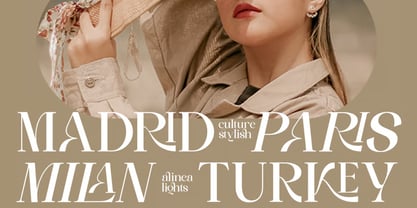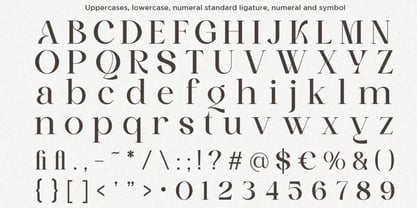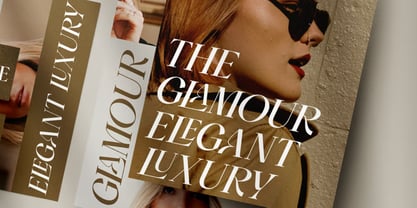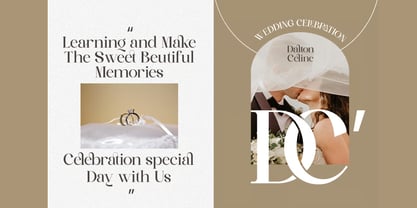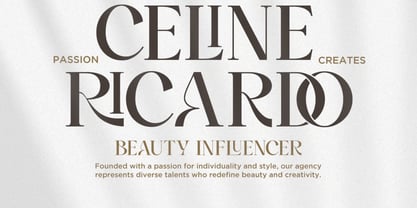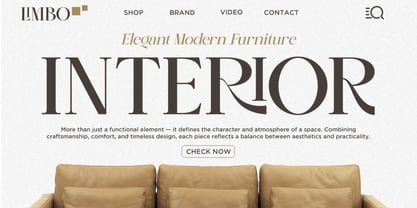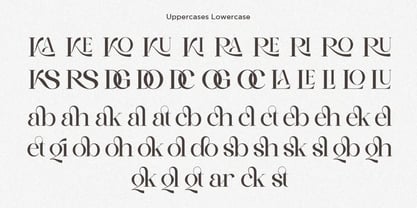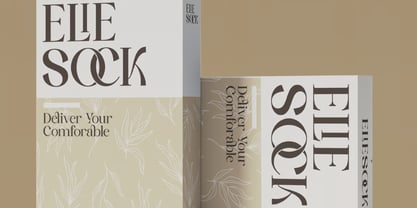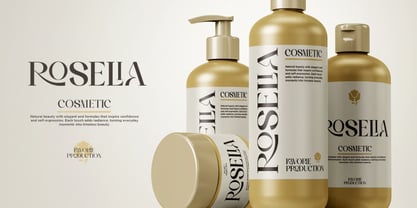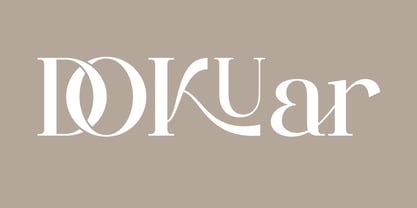
Dokuar
The Dokuar Font Family was designed by Hasnat Khan and published by Hasnat Studio. Dokuar contains 1 styles. More about this family
Dokuar is an elegant ligature serif font crafted for designers who appreciate luxury, sophistication, and timeless typography. Featuring refined letterforms, artistic ligatures, and a stunning high-contrast serif style, Dokuar seamlessly blends classic elegance with contemporary design trends, making it an exceptional choice for premium creative projects.
Designed to deliver a polished and upscale aesthetic, Dokuar enhances everything from luxury logos and fashion branding to editorial layouts and wedding stationery. Its graceful curves, carefully balanced proportions, and stylish ligatures create a distinctive visual identity that instantly captures attention and elevates the overall design experience.
Whether you're creating fashion labels, magazine covers, luxury packaging, branding materials, invitations, beauty product designs, social media campaigns, or premium marketing assets, Dokuar provides the sophistication and versatility needed to achieve a truly professional look.
✿ Key Features:
• Elegant Serif Design: Luxurious high-contrast serif letterforms with timeless appeal.
• Artistic Ligatures: Beautifully crafted ligatures for seamless and sophisticated typography.
• Regular & Italic Styles: Flexible font family for dynamic and expressive designs.
• Premium Editorial Aesthetic: Perfect for modern magazines, branding, and luxury publications.
• Uppercase & Lowercase Characters: Complete character set for versatile design usage.
• Multilingual Support: Includes accented characters for international projects.
• High-Quality Craftsmanship: Professionally designed for exceptional print and digital performance.
✿ Perfect For:
• Luxury Branding & Logo Design: Create elegant and memorable brand identities.
• Fashion Labels & Beauty Brands: Perfect for premium and high-end product presentation.
• Editorial & Magazine Design: Stunning for headlines, covers, and sophisticated layouts.
• Wedding Invitations & Stationery: Add timeless beauty and refinement to special occasions.
• Packaging & Product Labels: Ideal for cosmetics, fragrances, jewelry, and boutique products.
• Social Media & Marketing: Design stylish promotional content with luxury appeal.
• Creative Typography Projects: Perfect for quotes, presentations, and artistic compositions.
Transform your designs with Dokuar—an elegant ligature serif font that combines luxury, creativity, and timeless beauty. Perfect for branding, editorials, fashion, packaging, invitations, and premium visual identities that deserve to stand out.